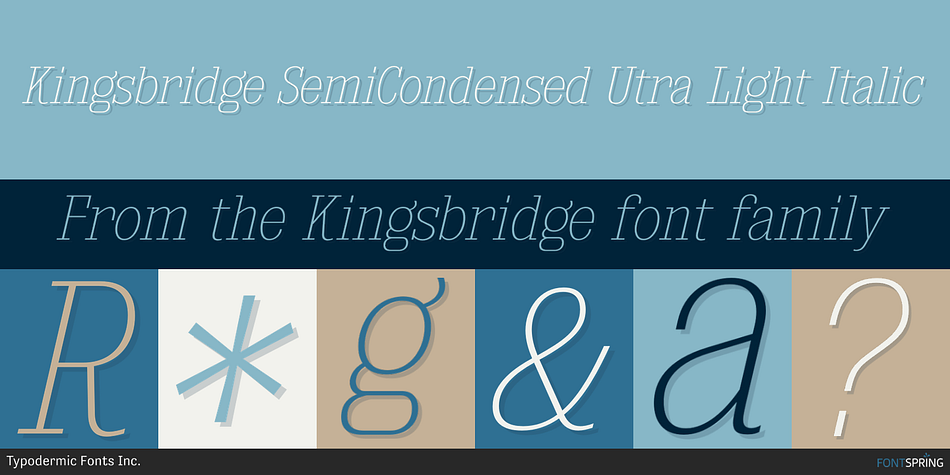
Kingsbridge is a slab serif font family. This typeface has fifty-six styles and was published by Typodermic Fonts Inc.
Kingsbridge SemiCondensed Utra Light Italic
Introducing Kingsbridge—the rugged and charming slab-serif typeface that’s bound to make your design stand out from the crowd. With its bold and square slabs, this typeface boasts a robust and commanding presence that captures attention with ease. Kingsbridge’s distinctive razor-sharp points give it a touch of edginess, while still maintaining a friendly and approachable vibe that makes it the perfect choice for a wide range of projects.
Whether you’re creating a logo, a poster, or even a website, Kingsbridge’s versatility will help you achieve the perfect look. With seven weights, four widths, and italics, this font offers an impressive 56 variations that give you the freedom to express your creativity and make your work truly unique. And with its contemporary style, Kingsbridge is a typeface that will effortlessly adapt to any design theme, giving your work a professional and modern touch.